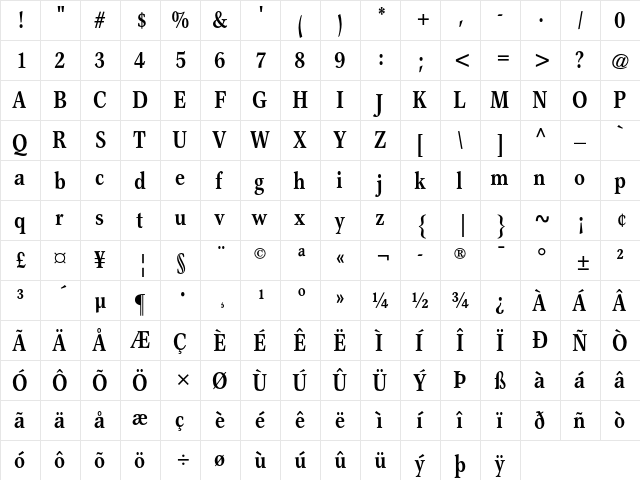
Garth Graphic Bold Condensed Font Preview
Design Context for Garth Graphic Typeface
Garth Graphic takes a measured approach to typography — its balanced proportions and neutral character make it a reliable workhorse for both digital and print work. The heavy weight commands attention and anchors typographic hierarchies. The condensed width makes it efficient for tight spaces without sacrificing legibility.